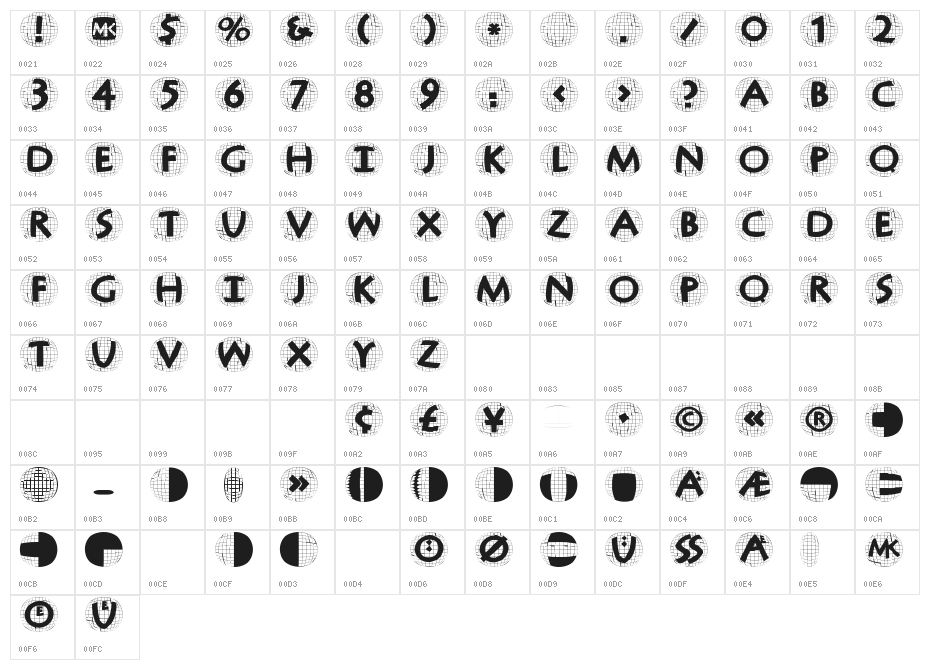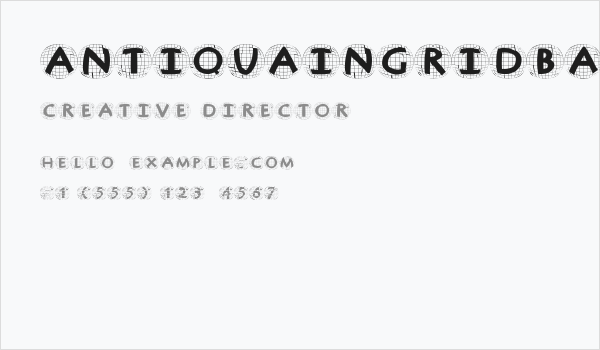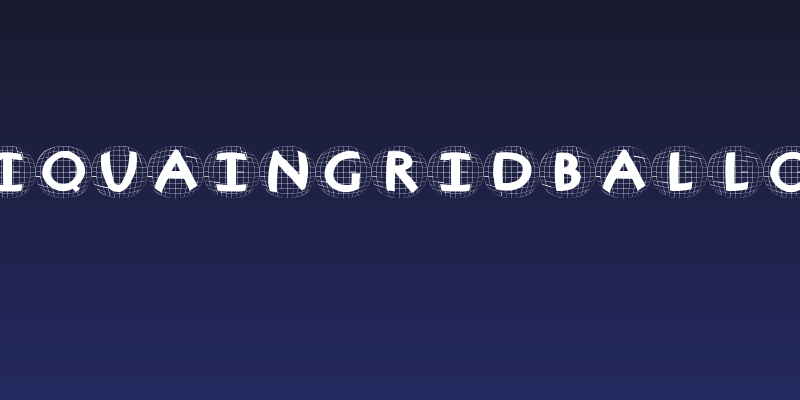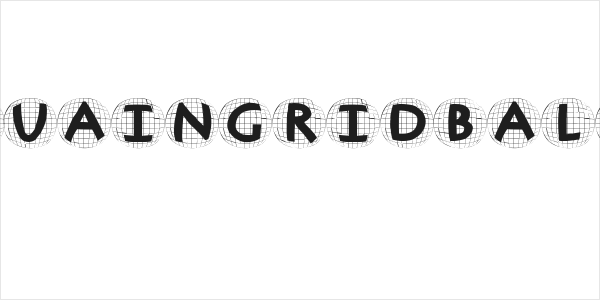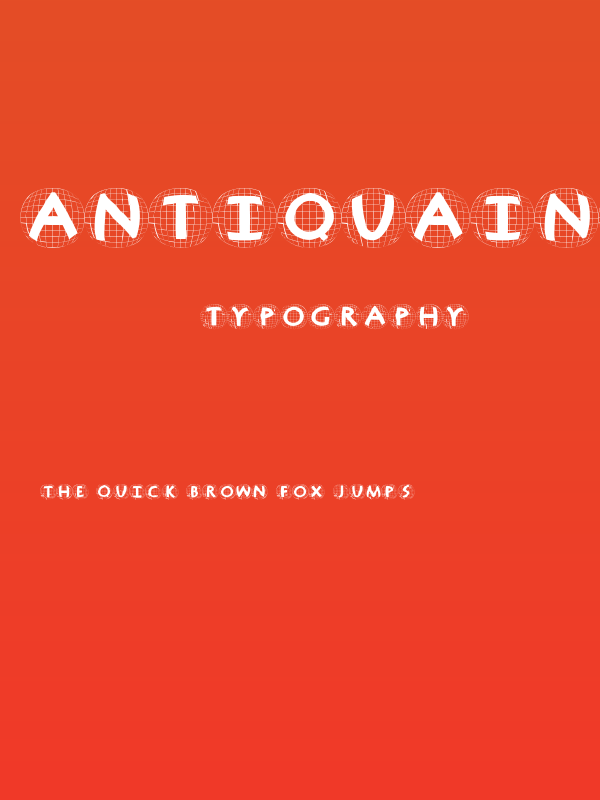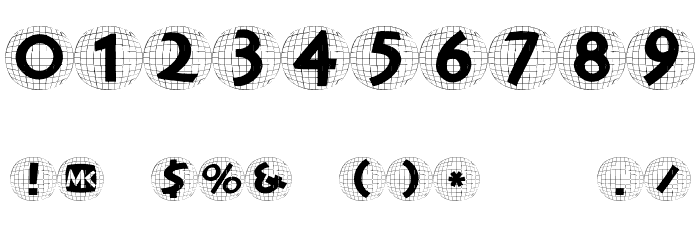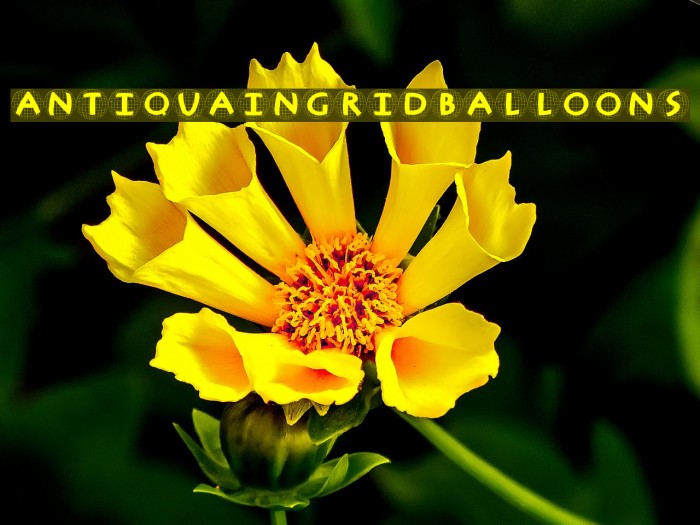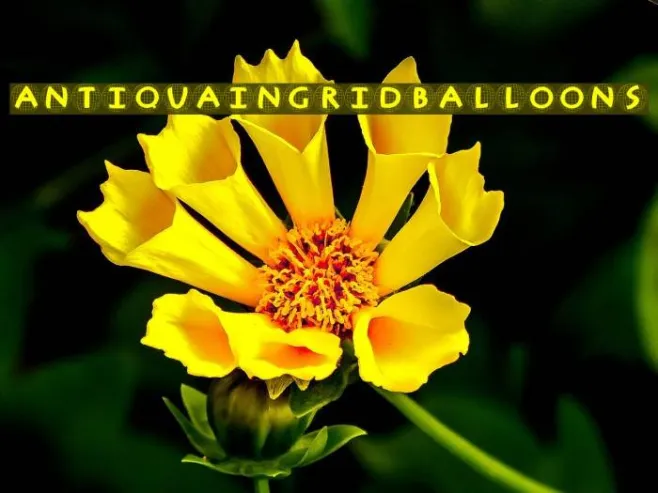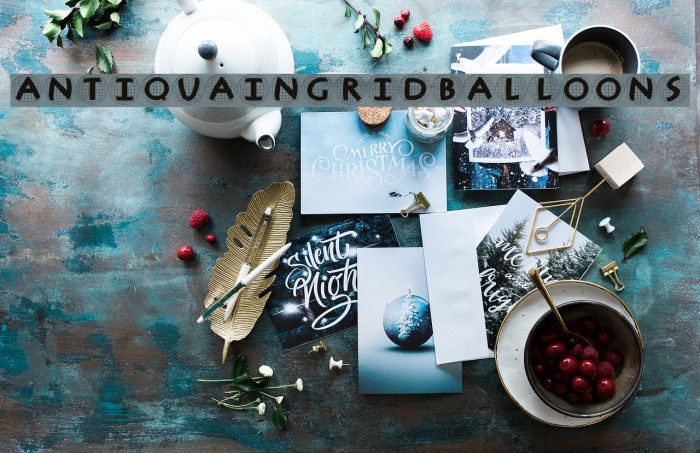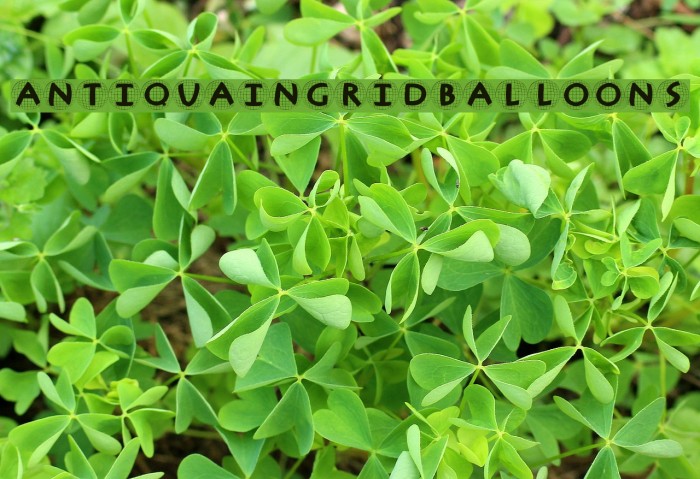
AntiquaInGridBalloons Font
AntiquaInGridBalloons Description
This font features a unique design where each character is encapsulated within a spherical grid, giving the appearance of letters floating on balloons. The characters are bold and have a playful yet structured look, with a geometric pattern overlay that adds a sense of depth and dimension. The uppercase and lowercase letters maintain a consistent style, with clean lines and a modern aesthetic. Numbers and special characters are also included, each following the same design principle, making the font versatile for various creative projects.
| Proposed Projects | Ideal for children's books, party invitations, playful branding, and creative posters. |